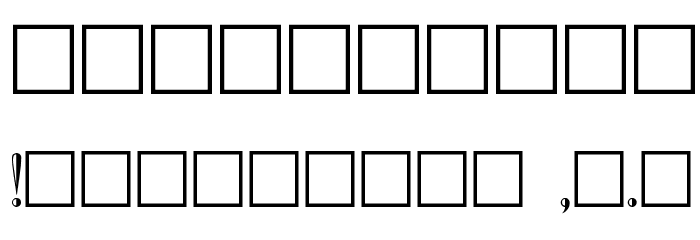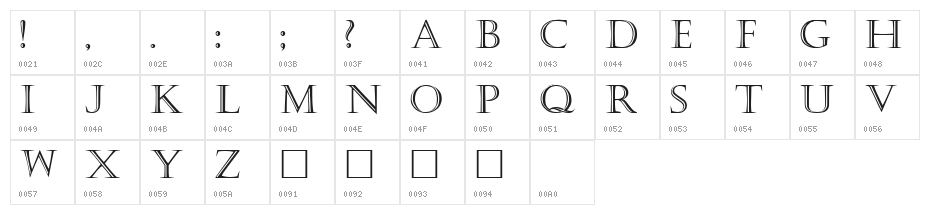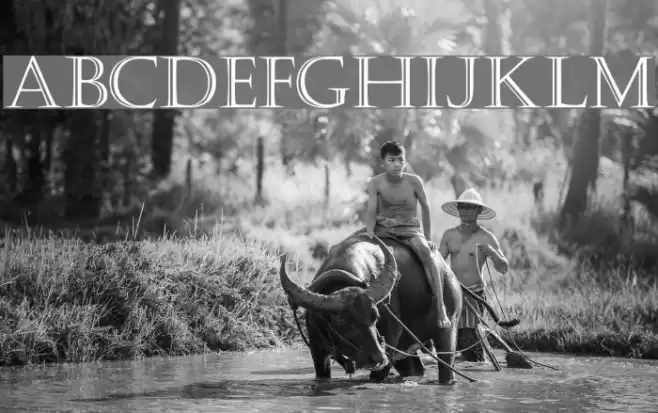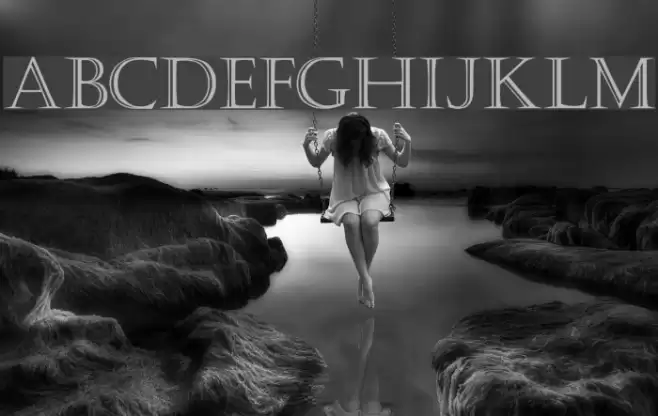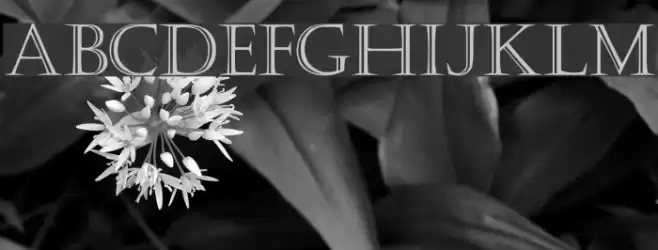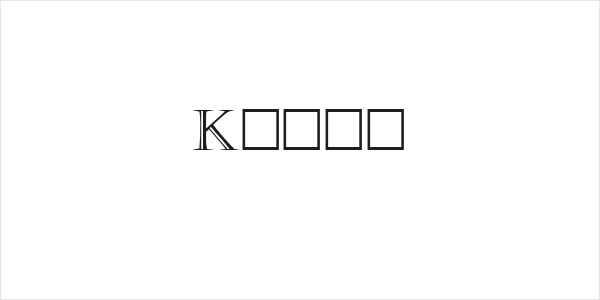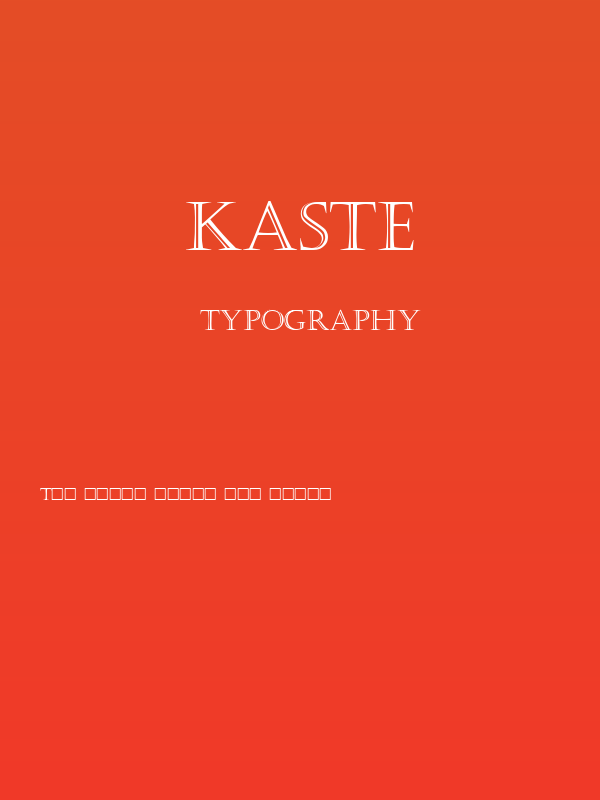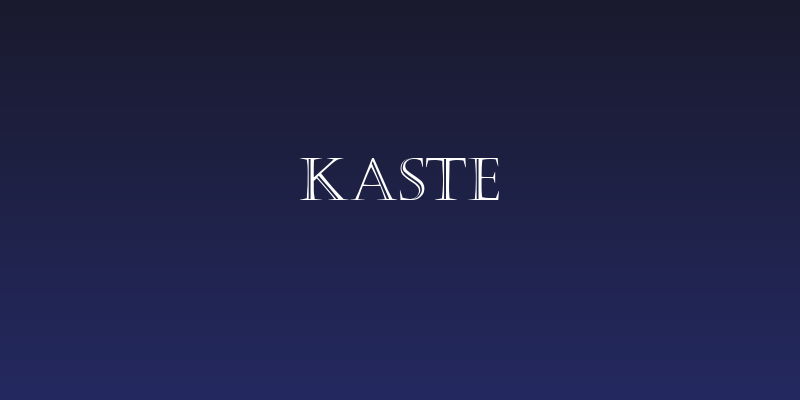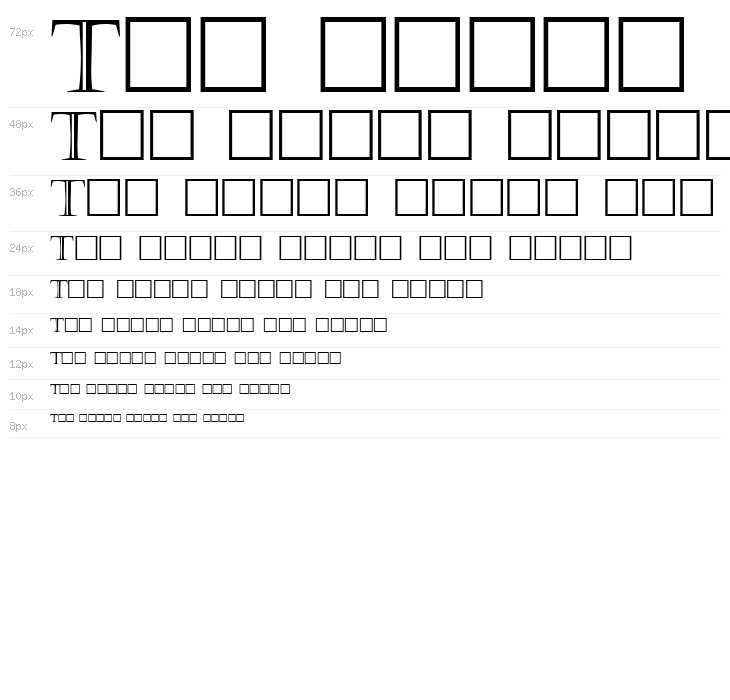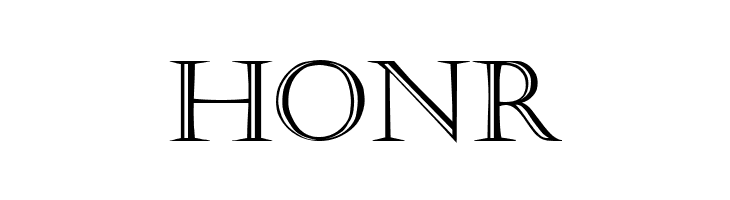
Kaste Font
Kaste Description
This font features a classic serif style with elegant, thin strokes and subtle contrast. The serifs are sharp and pronounced, adding a touch of sophistication and formality. The uppercase letters are tall and stately, while the lowercase letters maintain a consistent style with slightly rounded edges. The numbers are clear and easy to read, matching the overall aesthetic. The special characters are designed with the same attention to detail, ensuring a cohesive look across all text elements. This font is ideal for projects that require a touch of elegance and tradition.
| Proposed Projects | Ideal for formal invitations, book covers, and editorial design. |